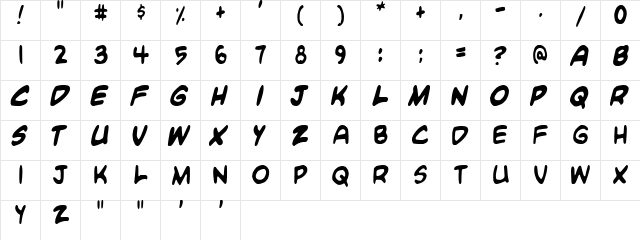
Blambot Custom Regular
Design Context for Blambot Custom Typeface
Blambot Custom is a composed and adaptable typeface that performs quietly and consistently across a wide range of design contexts.